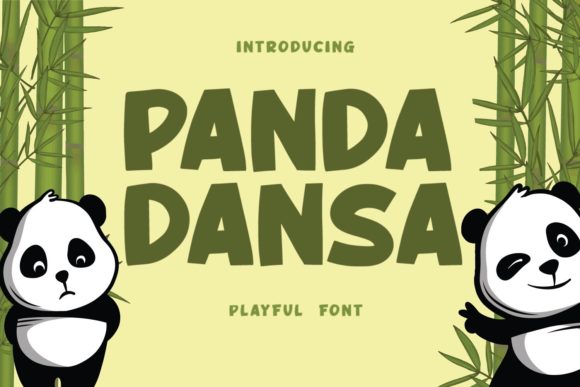
Journey into a world of festive cheer with Panda Dansa, a whimsical display font crafted to ignite the magic of Christmas. Inspired by the playful spirit of the season, each letter dances across your designs like a joyful melody, capturing the essence of holiday cheer.
Unleash your creativity and wrap your words in the warmth of Panda Dansa's unique charm. Its bold strokes and jolly curves dance together, evoking a sense of merriment and wonder. Whether you're crafting heartwarming Christmas greetings, eye-catching posters, or adding a festive touch to your brand's messaging, Panda Dansa is the perfect choice.
Transport your audience to a winter wonderland with headlines that sparkle like fairy lights, and engage them with jolly blocks of text that evoke the joy of the season. Panda Dansa's versatile nature allows it to shine in both large and small spaces, ensuring maximum impact and captivating appeal.
With Panda Dansa, your words become presents, wrapped in playful typography that invites your audience to celebrate the magic of Christmas. Embrace the jolly spirit of the season and let Panda Dansa transform your designs into festive masterpieces.